Imagine a kindergarten classroom poster or a children’s book filled with dull, monotonous letters. It simply wouldn’t be as fun, exciting, or interesting as one with a well-chosen children’s font that kids love! So if you are a teacher or a parent who wants to capture the attention of kids, then you have come to the right place!
In this article, we are going to take a look at some of the best Google fonts for teachers and kids or anyone else looking for fun fonts to add some magic to otherwise boring text!
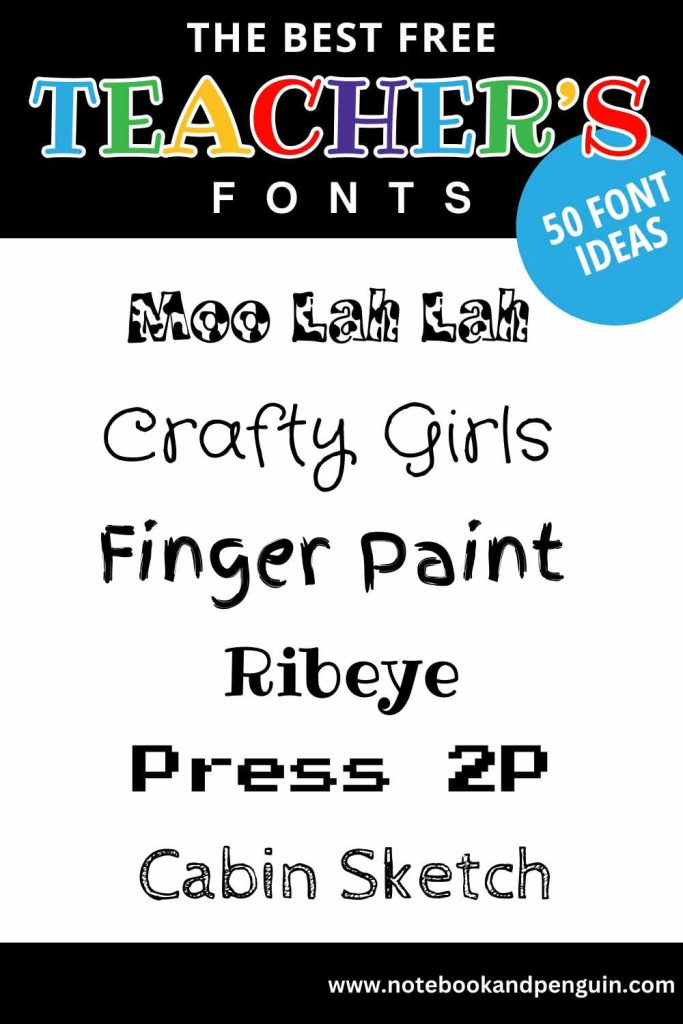
The Best Google Fonts For Kids
And without further ado, onto our list of our favorite kids’ fonts for teachers and anyone else looking for fun and playful lettering for worksheets, projects, or kid’s journals.
Black Ops One
Black Ops One has a military-inspired look and feel. It is a stencil font that is perfect for teachers creating posters, book covers, or even games.
Atomic Age
Atomic Age has a futuristic feel that captures the fun of space exploration!
Love Ya Like a Sister
Love Ya Like a Sister is a quirky and fun teacher’s font that has a friendly feel to it. It is a great option for creating greeting cards, crafts, children’s books, and educational materials.
Cabin Sketch
Cabin Sketch is fun and quirky with a rustic feel, perfect for nature-themed teaching materials.
Freckle Face
Freckle face is a childlike font that captures the feeling of childhood innocence. It has messy letters that are interesting and eye-catching!
Flavors
Flavors is a cute teacher’s font that is fun and playful.
Jolly Lodger
Jolly Lodger is an interesting font that you will sometimes see being used as a Halloween font. It has a fun feel to it that reminds me of balloons and candyfloss.
Barriecito
Barriecito has uneven letters that are really interesting.
Shizuru
Shzuru has hollow letters that make it a great font choice for teachers because it allows kids to color in the letters.
Lorinda Shadow
Just like Shizuru, Lorinda Shadow is another hollow outline font that adds an extra dimension of fun to teachers’ worksheets. It is bulkier and more bold so it is a great preschool font for kids to color.
Lorinda Outline
Lorinda Outline is another member of the Lorinda family of fonts. This time however it doesn’t have a shadow effect.
Faster One
Faster One is bold and dynamic – great for sports-themed worksheets or children’s books.
Smokum
Looking for a cowboy-inspired font? Then look no further than Smokum! This bold font has a very distinctive Wild West feel to it.
Rye
Rye is another Western-themed Google font that reminds me of old West saloons and cowboys.
Biorhyme
Biorhyme has a scientific feel to it and it is a great teacher’s font to consider if you are creating worksheets or resources for biology or science.
Peralta
Peralta is a cute kids’ font that works well for children’s book titles or even comic book speech bubbles.
Rancho
Rancho is a fun font that also has an old-west feel to it. It looks quite similar to the font that was used for the movie Rango!
Sunshiney
Sunshiney is a cheerful kids’ font that is quirky and cute with a playful twist to it.
Miltonian
Miltonian is another outline font that kids love!
Ribey
Ribey is quite similar to Miltonian and as an added bonus it also has an outlined version of the font called Ribeye Marrow.
Ribey Marrow Google Font
Schoolbell
Schoolbell is probably one of the most well-known and popular fonts for teachers! Its name makes it a no-brainer for any teaching materials.
Mouse Memoirs
Mouse Memoirs is a great preschool font because it is bold and easy to read while still being playful and cute.
Puppies Play
Puppies Play is a very cute teacher’s font that has a joyful and carefree feel to it. Although probably not the best preschool font, it can be used for older kids in the right design.
Bon Bon
Bon Bon is a usual Google children’s font that adds a touch of whimsy to kids’ materials with its swirly letters and decorative little flowers and hearts.
Holtwood One
I can’t decide whether Holtwood has a Hollywood feel to it or more of a Western feel. Either way, it certainly makes an impact!
Conclusion